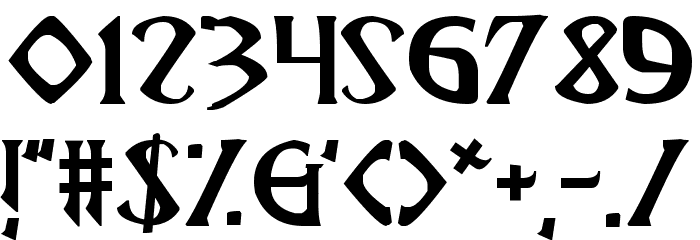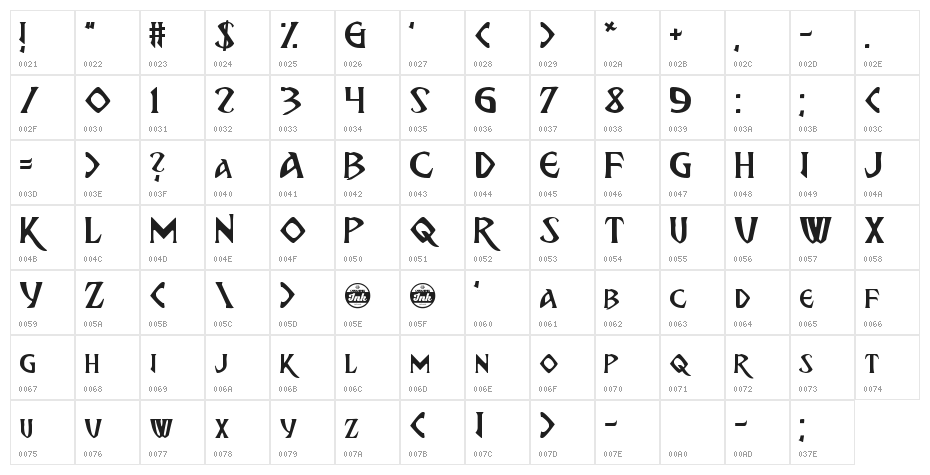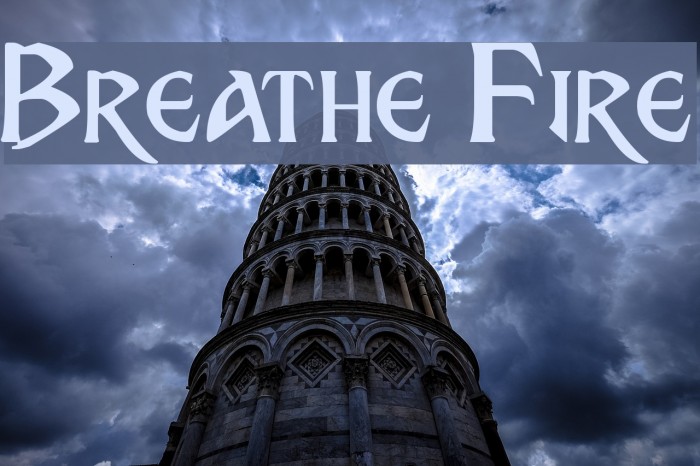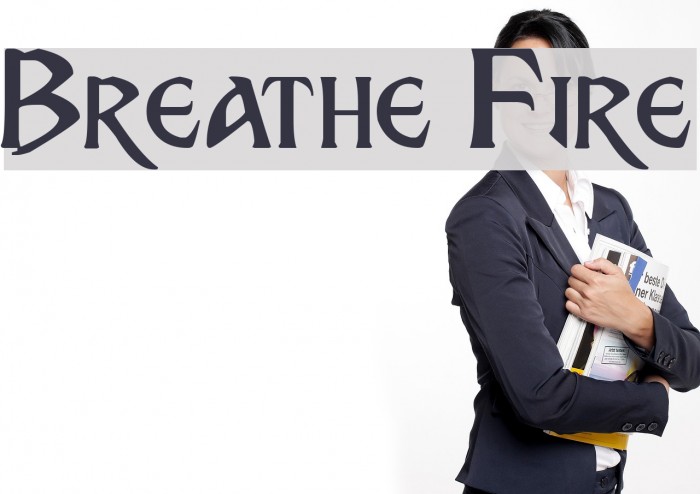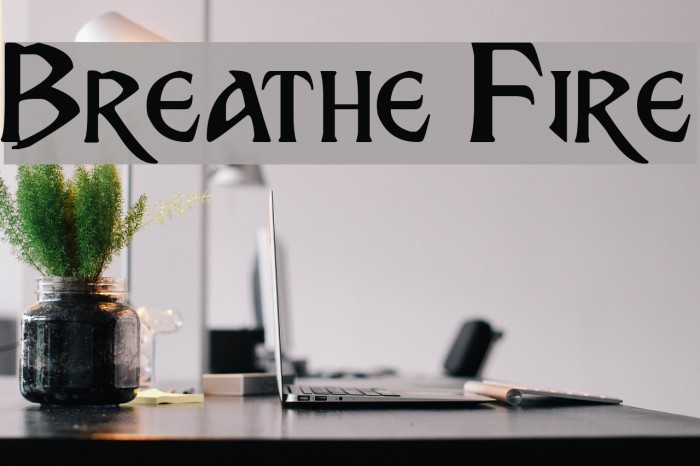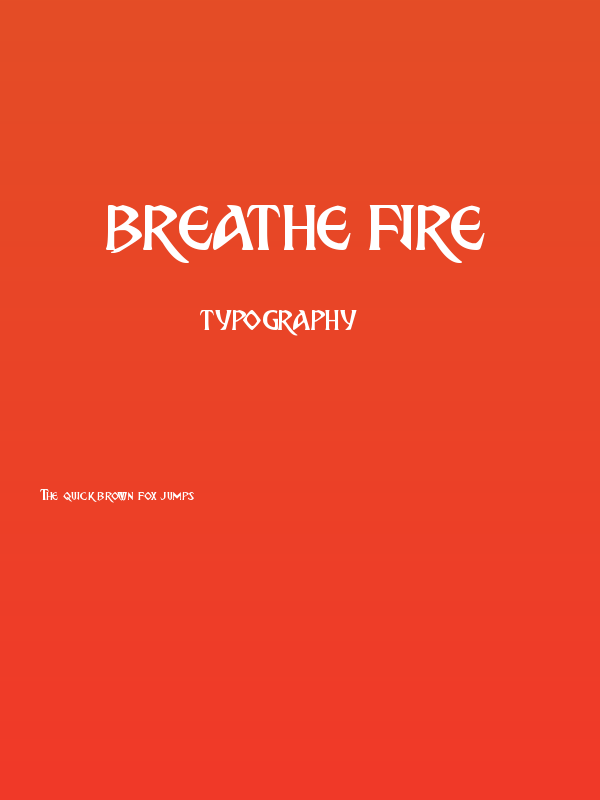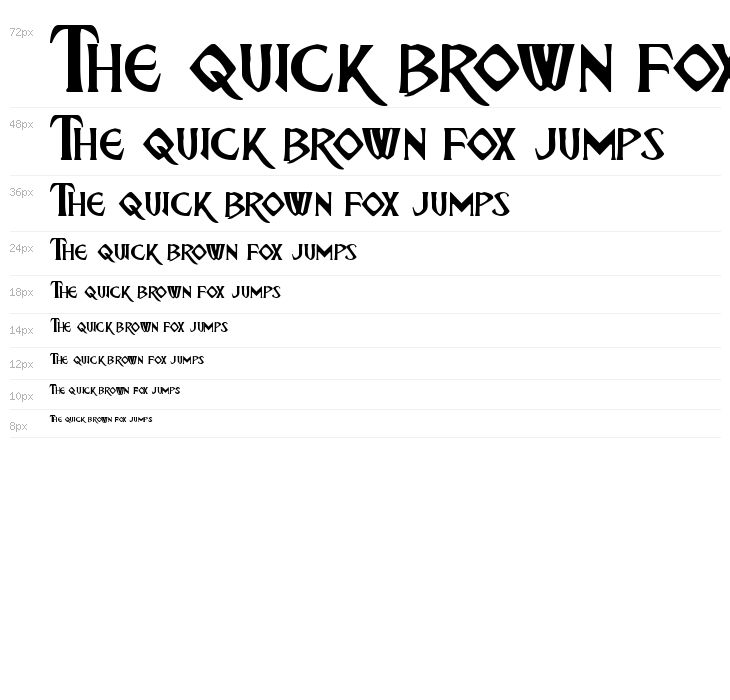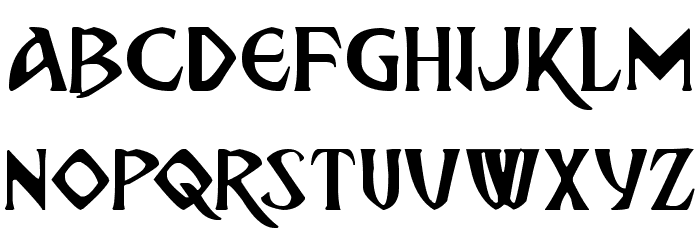
Breathe Fire Font
Breathe Fire Description
This font features a bold and dynamic style with sharp, angular edges and a slightly aggressive flair. The characters are designed with a sense of movement, reminiscent of flames or dragon scales, giving it a fierce and energetic appearance. The uppercase and lowercase letters maintain a consistent style, with unique, stylized serifs that add to its distinctive look. The numbers and special characters follow the same design principles, ensuring a cohesive and visually striking typeface. This font is perfect for projects that require a bold and impactful statement.